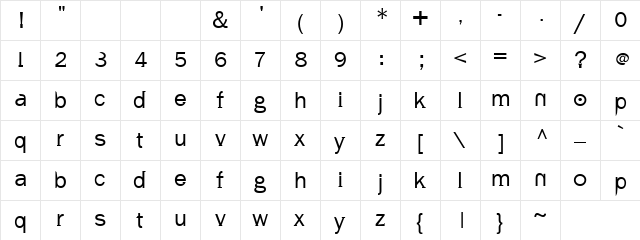
Baleno Regular
Design Context for Baleno Typeface
Baleno is a composed and adaptable typeface that performs quietly and consistently across a wide range of design contexts.